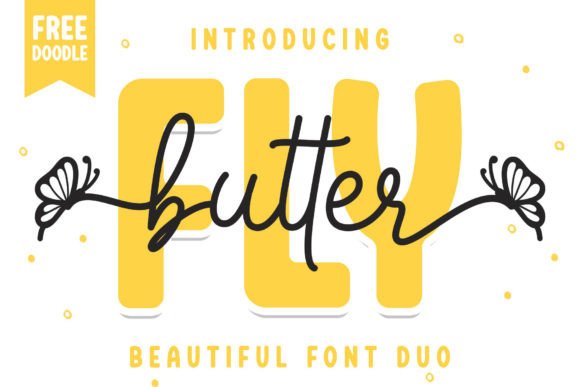
Welcome to the magical world of Butterfly Duo Font! This exquisite script font is a masterpiece from Hoperative Design. If you're looking for the perfect font to make your kid's birthday party or any children-related event special, then Butterfly Duo Font is the one for you!
With two enchanting styles, script and display, Butterfly Duo Font is the perfect blend of whimsy and elegance. Inspired by cute butterflies, this font is ideal for creating captivating designs that will catch the eyes of both kids and adults alike.
Butterfly Duo Font is not just beautiful, it is also incredibly functional. This font is PUA encoded, which means that you can easily access all of its glyphs and swashes. You'll love how easy it is to create stunning designs with this font!
Whether you're creating invitations, posters, greeting cards, or any other design project, Butterfly Duo Font is the perfect choice. Its playful and charming nature is sure to bring a smile to anyone's face.